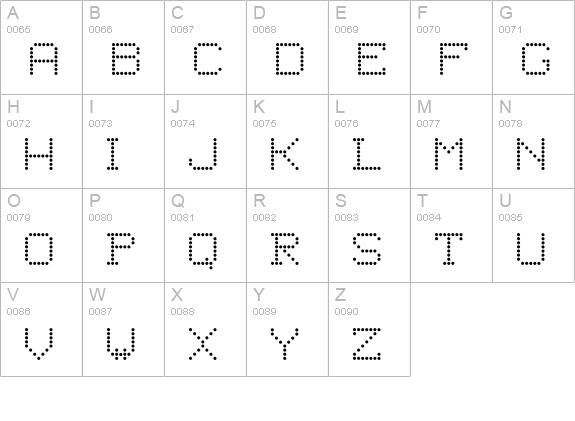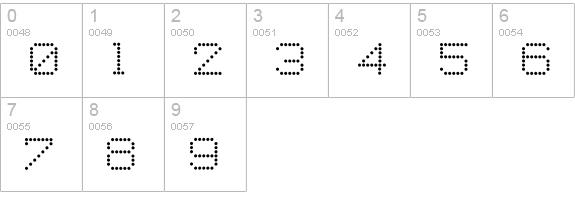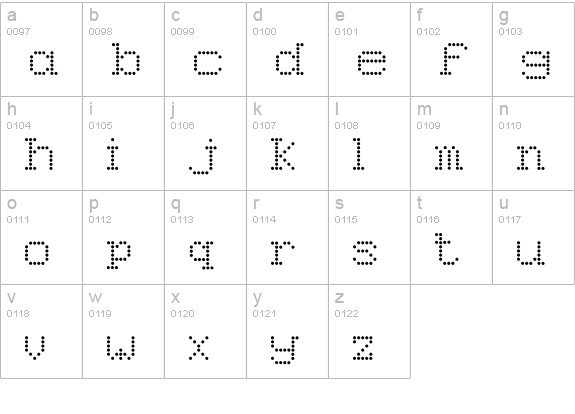
The 8Pin Matrix font is a modern and sleek typeface designed with a unique grid-like structure that gives it a futuristic and tech-savvy appearance. This font is perfect for creating eye-catching designs that demand attention and make a bold statement. Each character in the 8Pin Matrix font is meticulously crafted to fit within the grid, resulting in a cohesive and harmonious look. Whether you're working on a digital project, a website, or a print design, the 8Pin Matrix font will elevate your work and give it a contemporary edge. Its clean lines and sharp angles make it ideal for conveying a sense of precision and innovation. Best of all, the 8Pin Matrix font is available for free download at FontsMarket.com. This means you can easily access this stylish and versatile font to enhance your creative projects without any cost. Don't miss out on the opportunity to add the 8Pin Matrix font to your font collection today!